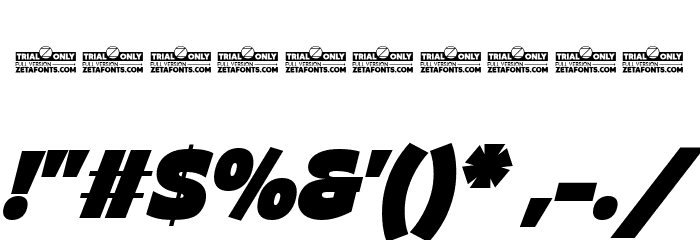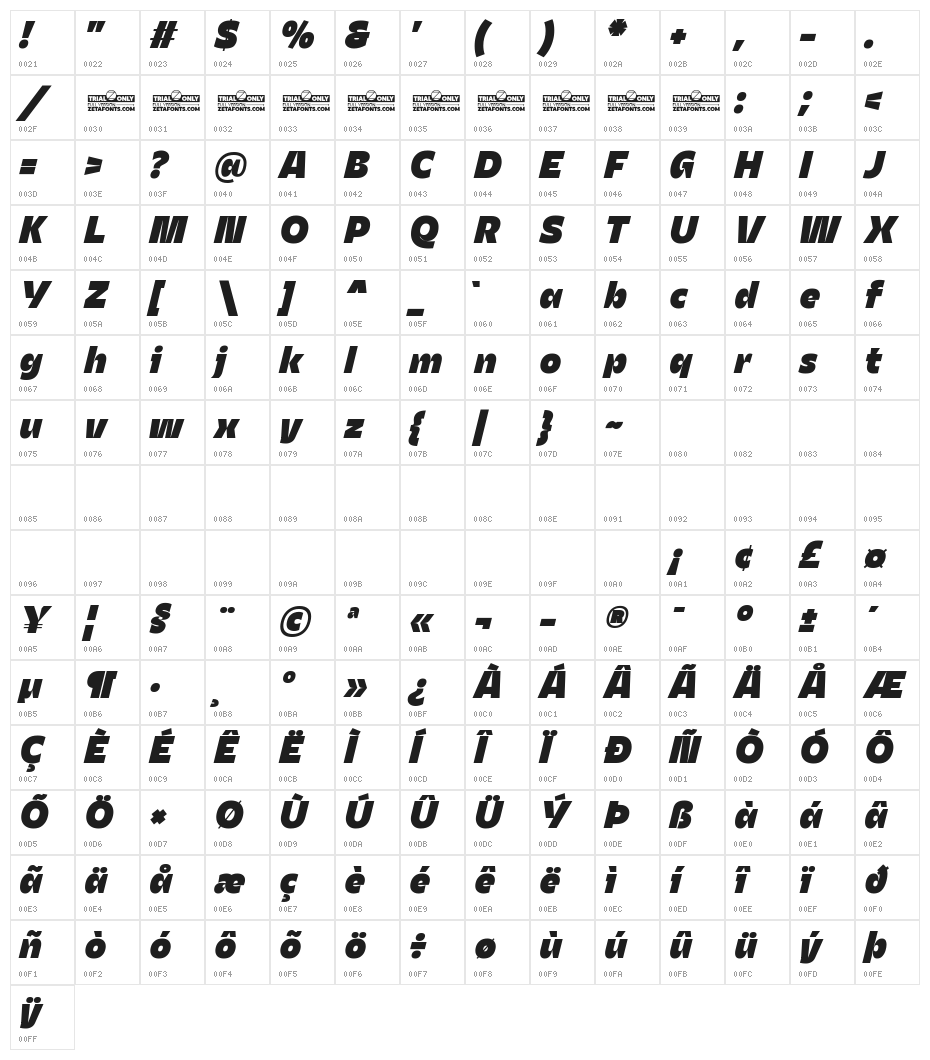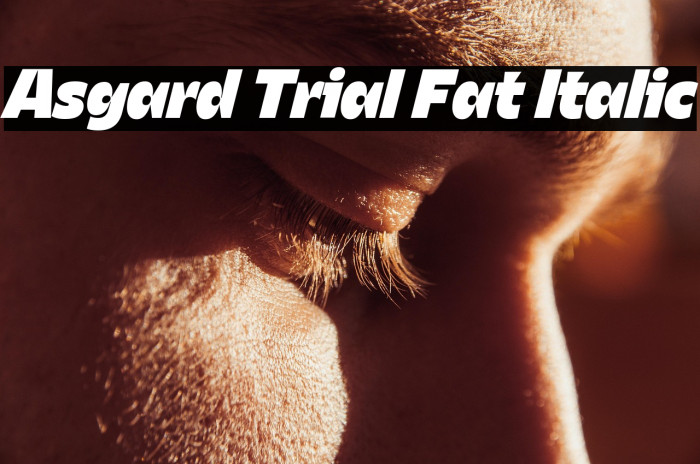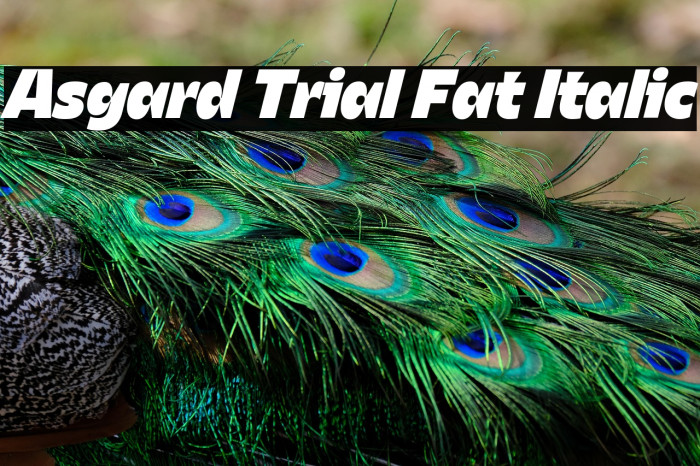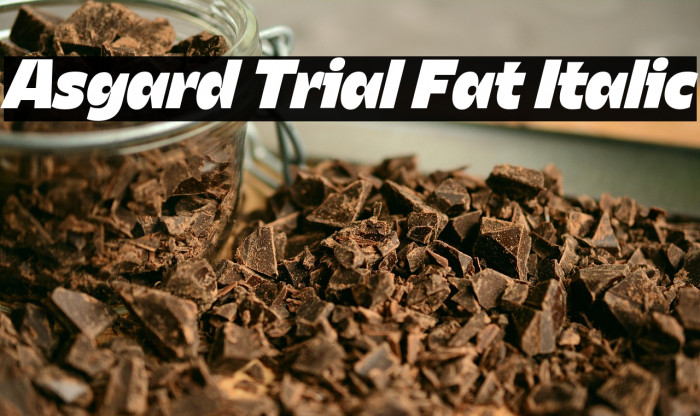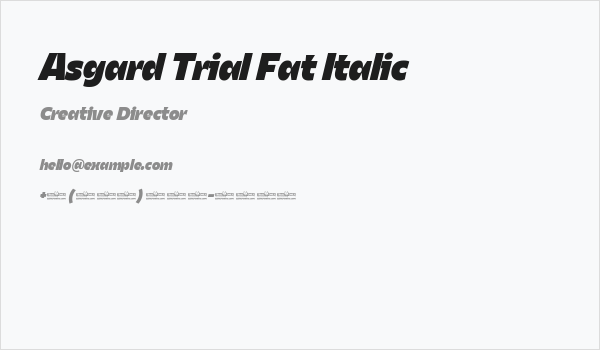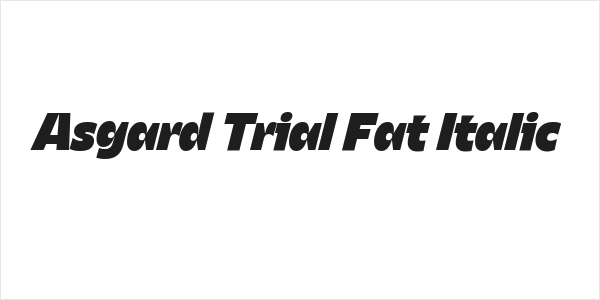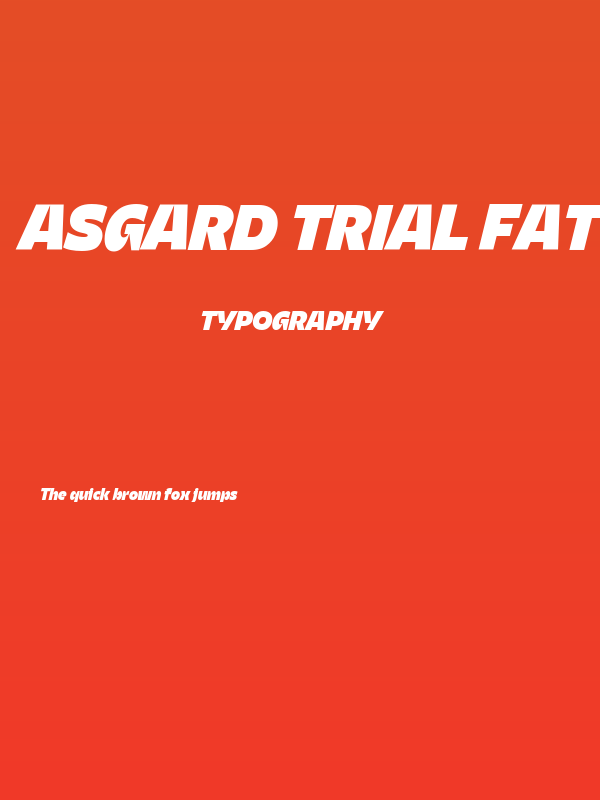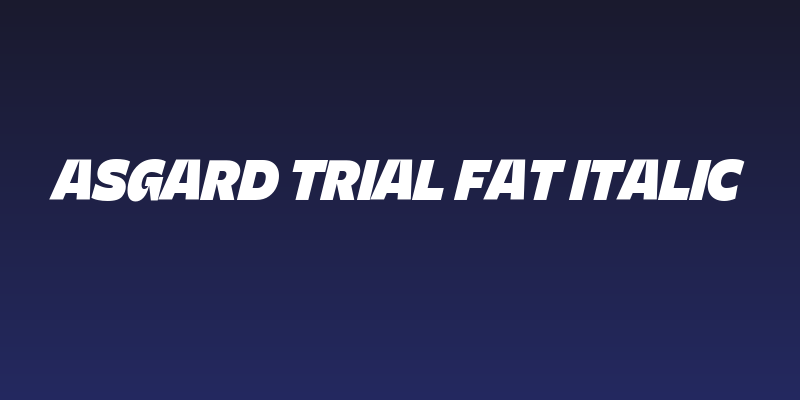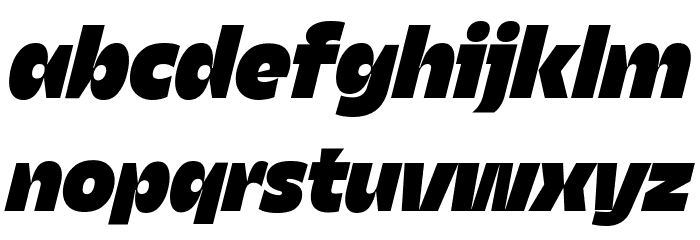
Asgard Trial Fat Italic Font
Asgard Trial Fat Italic Description
This font features a bold and dynamic style with a pronounced italic slant, giving it a sense of movement and energy. The characters are thick and robust, with a slightly condensed width that enhances their impact. The uppercase and lowercase letters maintain a consistent weight, ensuring readability while adding a touch of flair. The numerals and special characters are designed to match the boldness of the alphabet, making them suitable for attention-grabbing headlines or titles. The overall design is modern and sleek, with a high contrast between the thick strokes and the negative space, which adds to its visual appeal.
| Proposed Projects | Ideal for branding, advertising, posters, and any project requiring a bold, eye-catching typeface. |